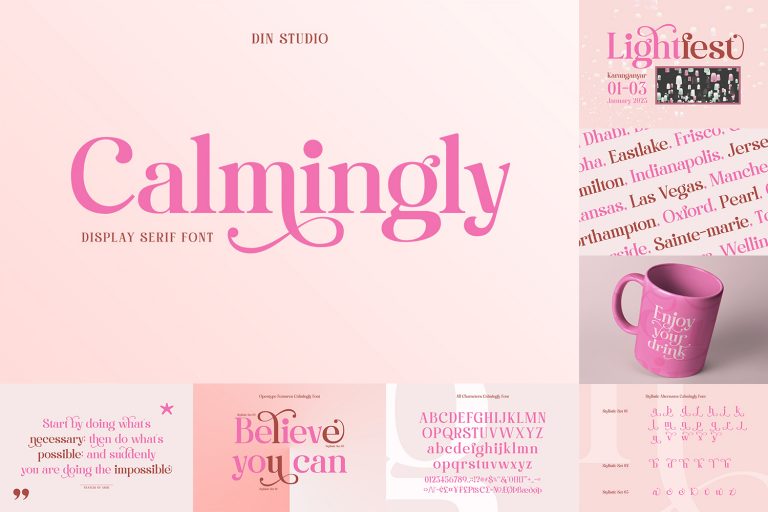
Modern Display Font Bundle 4
Hello, Everyone! Welcome to the Modern Display Font Bundle 4 from Din Studio, your gateway to a world of contemporary typography.
A meticulously curated collection that consists 10 diverse fonts, each designed with a modern aesthetic. It can be used for many design projects, such as poster, logo, book cover, branding, heading, printed product, merchandise, quotes, social media campaign, etc.
The font includes Multilingual Support as our commitment to support your brand globally recognize. See the previews above to get some inspiration on how you can use them.
Modern Display Font Bundle included :
- Agile Jewelry – https://din-studio.com/product/agile-jewelry/
- Boldest Romance –https://din-studio.com/product/boldest-romance/
- Calmingly – https://din-studio.com/product/calmingly/
- Delight Muffin – https://din-studio.com/product/honey-cages/
- Honey Cages – https://din-studio.com/product/honey-cages/
- Mighty Party – https://din-studio.com/product/mighty-party/
- Myflora – https://din-studio.com/product/myflora/
- Peach Montain – https://din-studio.com/product/peach-montain/
- Pokelor – https://din-studio.com/product/pokelor/
- Smooth Gracier – https://din-studio.com/product/smooth-gracier/